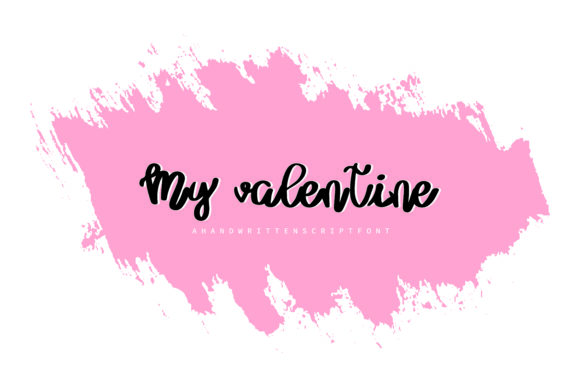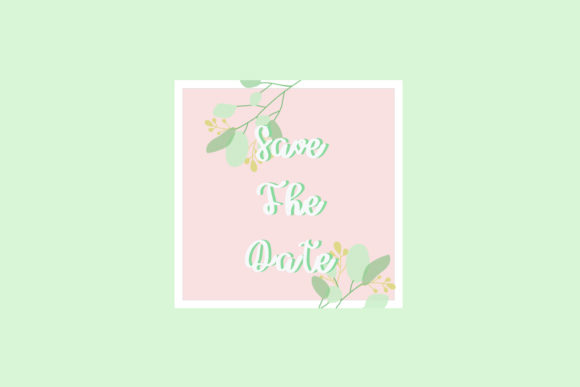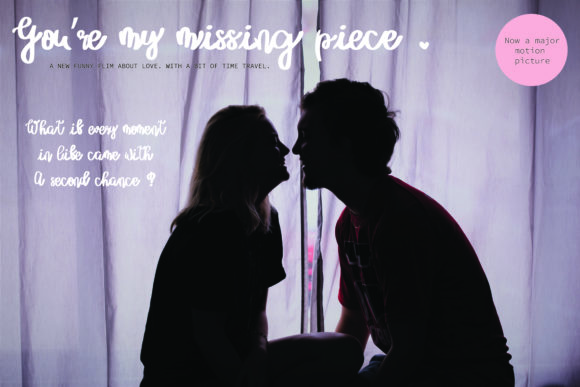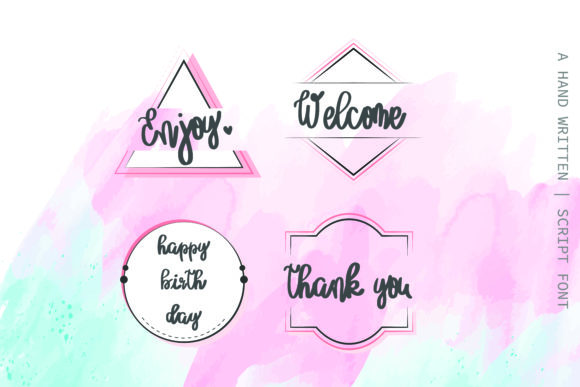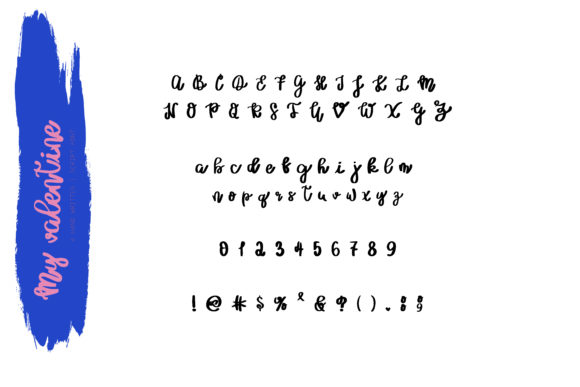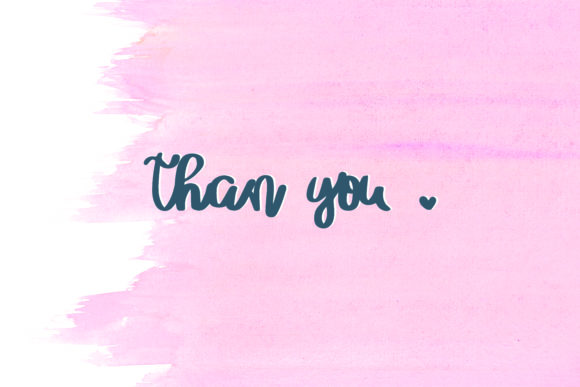
My Valentine Font
About My Valentine Font
My Valentine is a truly cute and lovely script font that radiates sweetness. Fall in love with its playful charm, and turn any design project into a masterpiece!